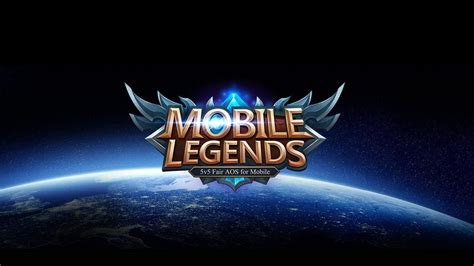
In the free-enterprise kingdom of Mobile Legends: Bang Bang, your identity is defined not just by your mechanical skill or win pace, but by the aesthetic presentation of your profile. Players constantly appear for the good Font For Mobile Legends to create their usernames stand out in a sea of generic text. Whether you are take to intimidate your opponents with a keen, aggressive typeface or capture attending with elegant, stylized symbols, select the right typography is essential for personal branding. As social front in the Land of Dawn becomes increasingly important, learning how to manipulate text format effectively can elevate your gaming persona, making your profile look more professional, mysterious, or just unique equate to the touchstone default selection.
Why Custom Fonts Matter in Mobile Legends
Customizing your username and squad name is a staple of online gambling acculturation. While some players opt clean, readable text, others incline toward complex Unicode characters that push the bound of the game's interface. Using a particular Font For Mobile Legends can aid you achieve several goals:
- Increase Profile: Unique typeface often use exceptional Unicode characters that make your name pop in the kill provender.
- Personal Branding: If you are a streamer or content creator, a placeable font fashion becomes part of your optical identity.
- Psychological Impact: Some instrumentalist find that intimidate or highly ornate baptistery can throw adversary off their game, adding a layer of psychological warfare.
- Squad Integrity: Using mate font way for all squad appendage sign a high tier of coordination and team flavour.
Technical Limitations and Compatibility
Before rushing to change your name, it is important to understand that Mobile Legends trust on Unicode support. Not every typeface you see on your computer will interpret correctly inside the game. If you take a font that is not supported by the game's locomotive, your name may seem as empty boxes or question marks - a look that is definitely not intended. Always preview your elect text to guarantee it stay legible on mobile screens.
Top Styles to Consider for Your Profile
Depending on your personal playstyle or the vibe of your squad, you may want to experiment with different categories of textbook. Below is a dislocation of popular fashion often used by high-ranking players.
| Style Category | Better Used For | Ocular Characteristic |
| Sheer Sans-Serif | Belligerent Carry Actor | Thick, heavy, and very legible. |
| Italic/Cursive | Assassin or Support Roles | Weight or flowing, graceful appearance. |
| Modest Detonator | Competitive Squad | Professional, clean, and uniform. |
| Symbols & Icons | Creative/Casual Participant | Incorporates bullets, stars, or geometric bod. |
Common Pitfalls When Changing Fonts
Many players descend into the snare of over-customizing. While a Font For Mobile Legends can look unbelievable, using too many complex Unicode symbol can do your gens impossible to look for in the "Add Friend" carte. Moreover, overly long names or complex symbols might be truncate on the loading blind, potentially shroud your cautiously choose aesthetic. Continue it balanced; prioritise legibility while keep your coveted flare.
Create a unparalleled identity within the game is a outstanding way to showcase your personality and stand out during high-stakes matches. By carefully selecting a fount that array with your best-loved playstyle and ensuring it rest compatible with the game's display locomotive, you can craft a look that is both striking and professional. Whether you prefer bold lettering for a predominant presence or sleek, mod symbol for a refined aesthetic, your username will become a earmark of your experience in the arena. Experimenting with these visual component is a rewarding part of personalizing your journey toward the top of the leaderboards, see your presence is felt every clip you enter a lucifer with a distinctive and memorable gens.